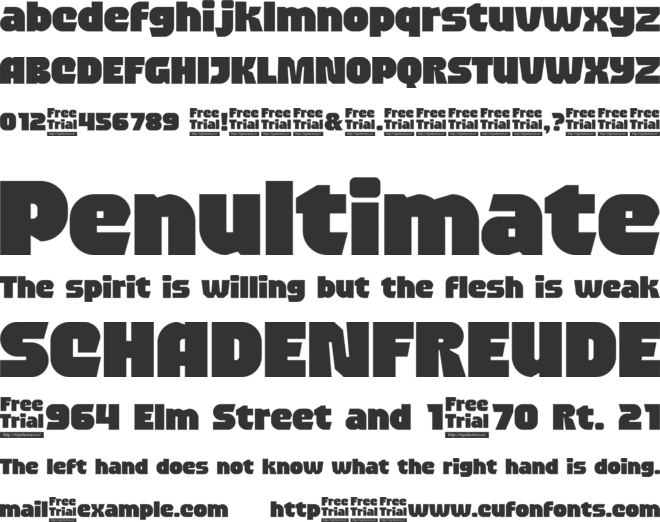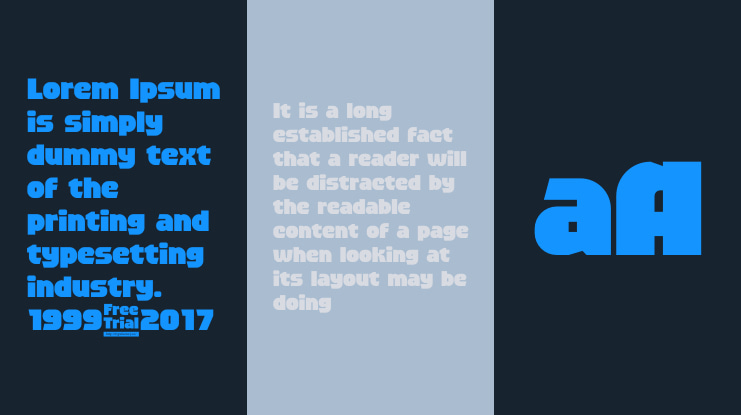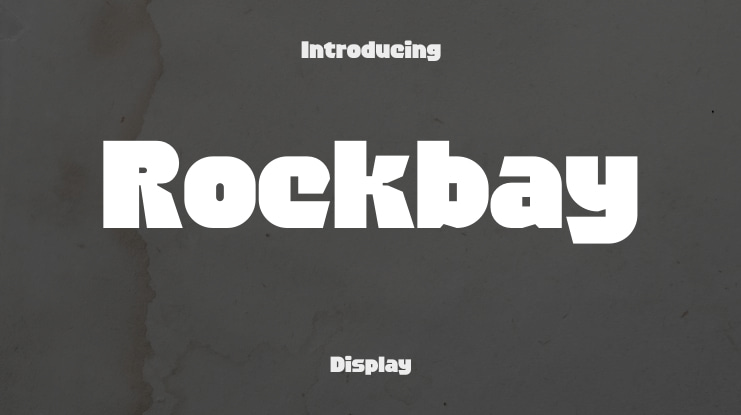
Rockbay Font
Rockbay is a bold, heavyweight display font designed to deliver pure, unadulterated strength and attention-grabbing power. With its extra-thick strokes, slightly rounded edges, and compact design, Rockbay stands out in any composition, making it the ultimate tool for designs that demand to be seen.
Inspired by rugged landscapes and robust advertising, this font is perfect for creators looking to project energy, durability, and a dynamic modern aesthetic.
Rockbay font preview